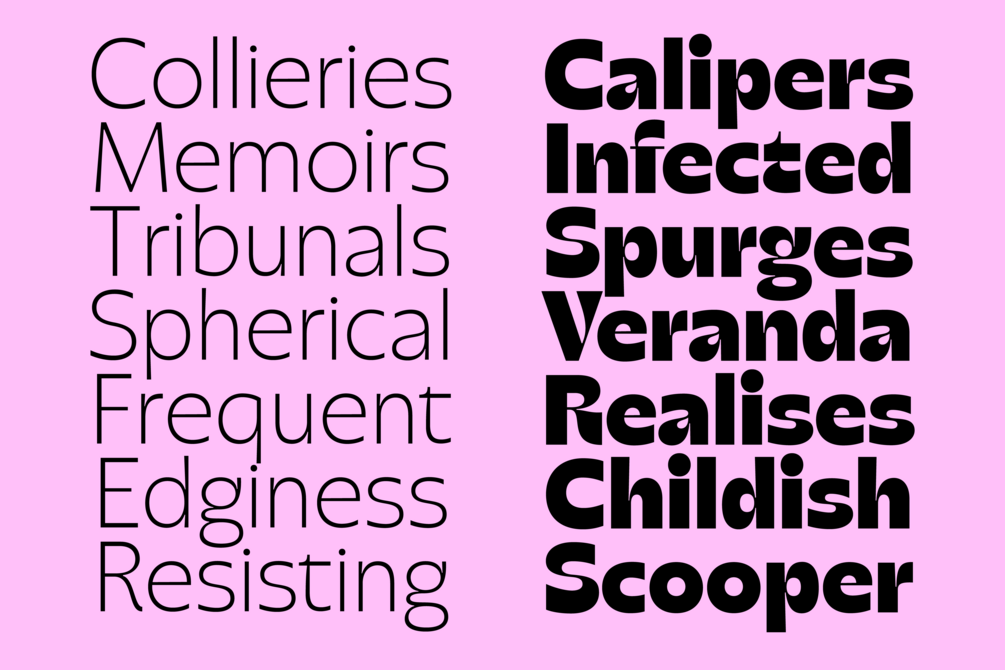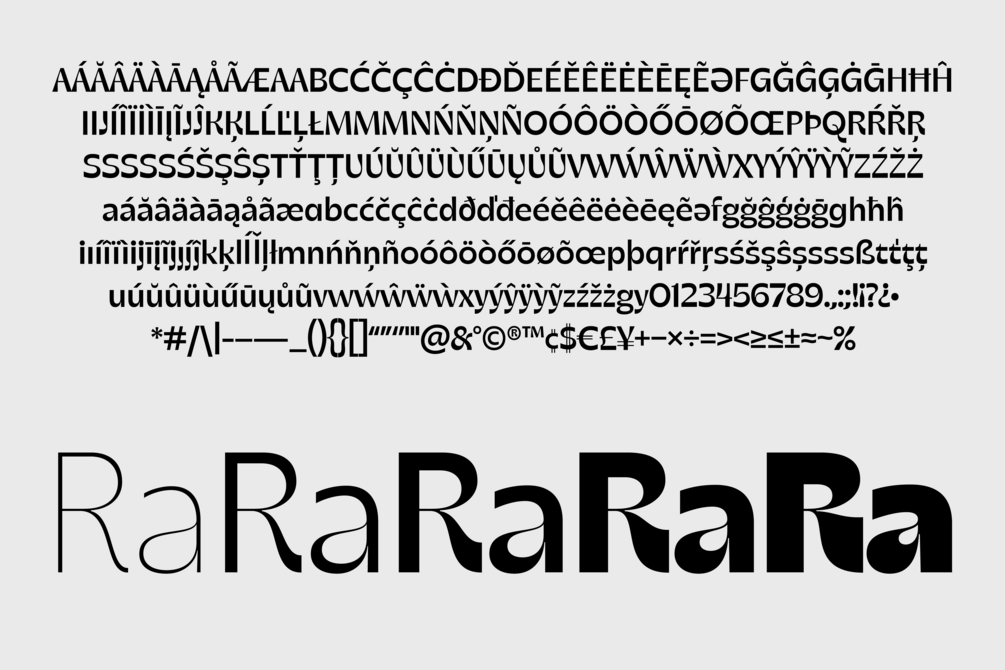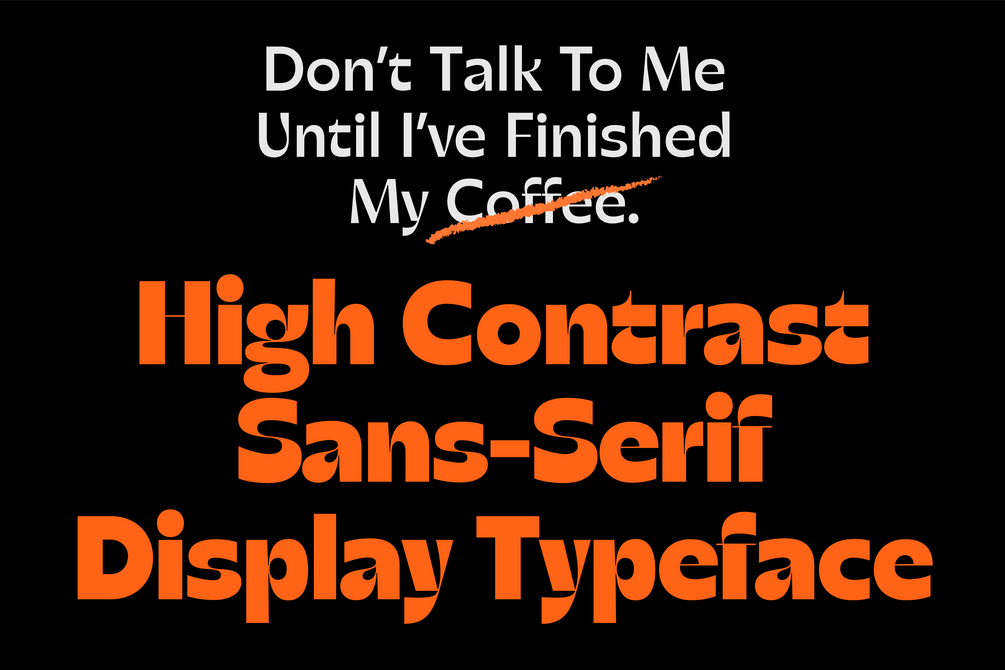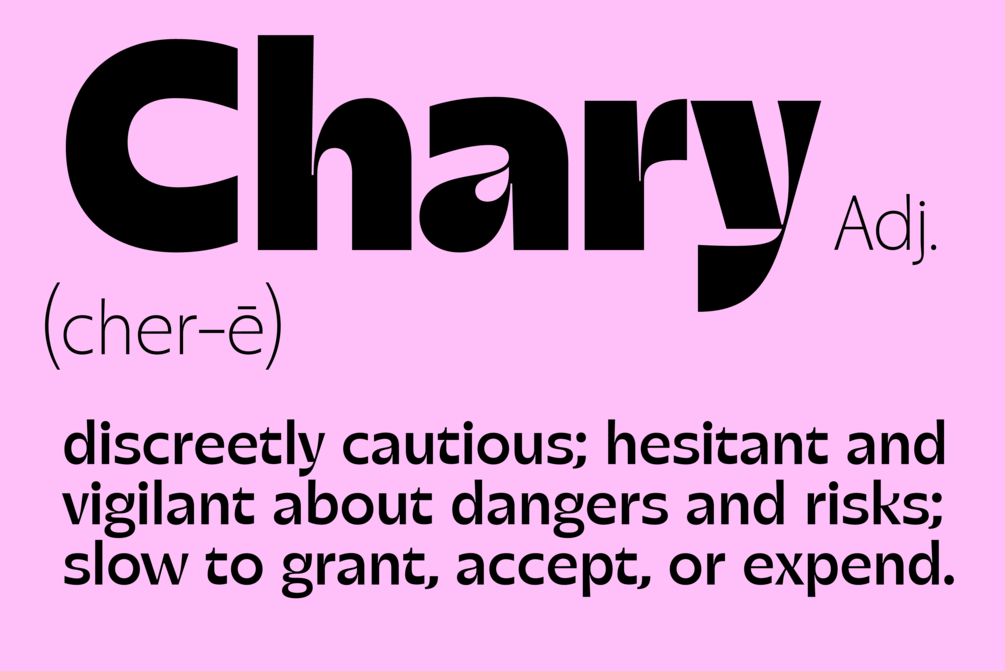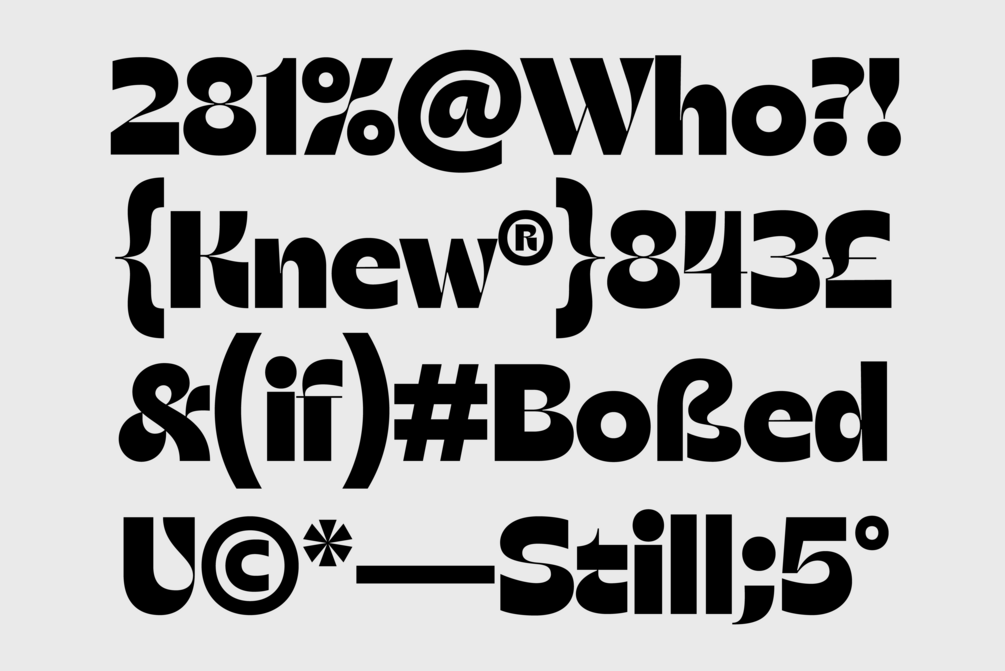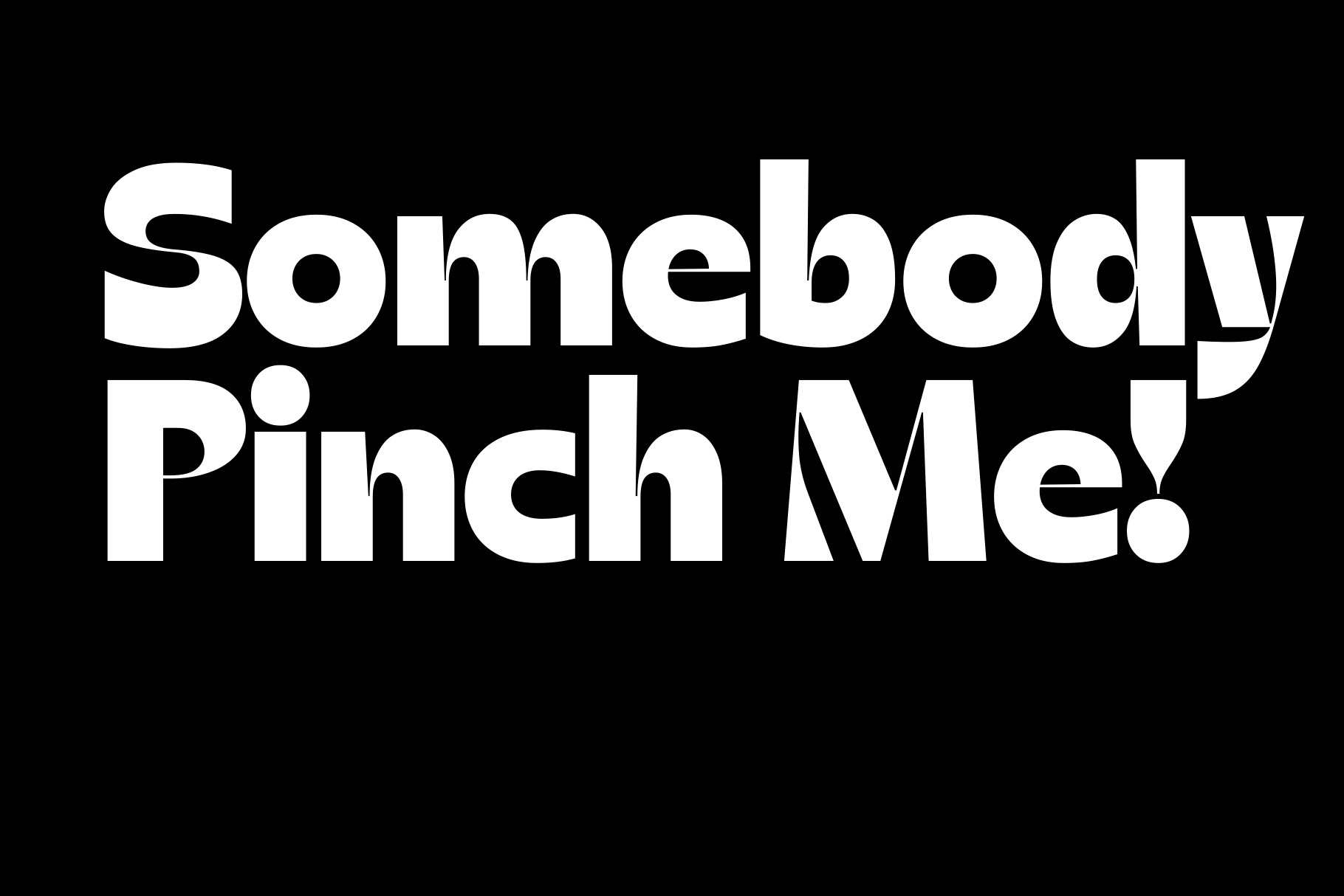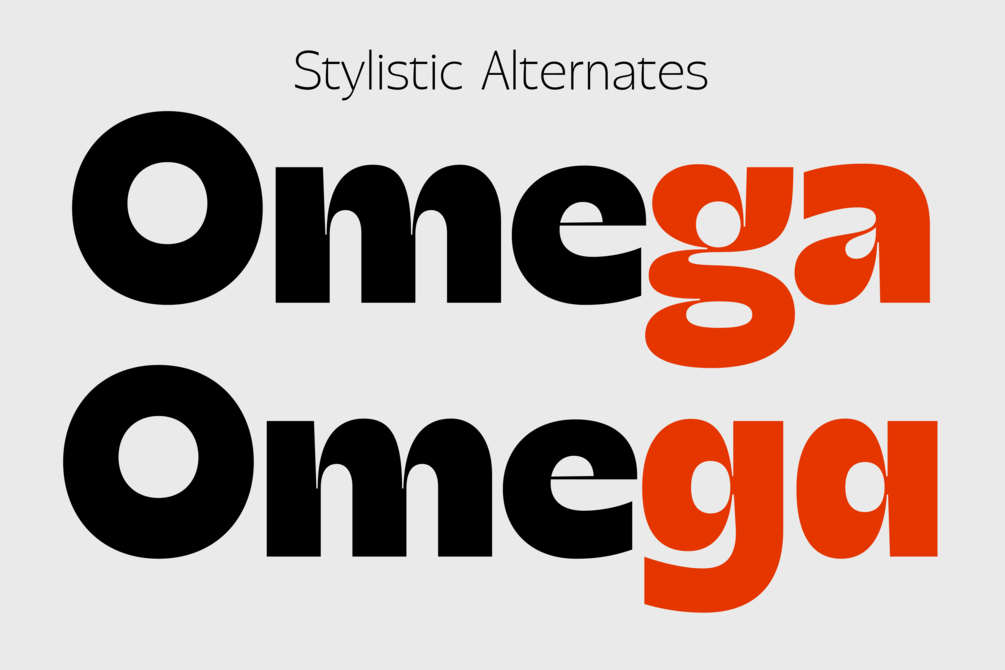
Chary
A high-contrast sans-serif variable display typeface, Chary is an introvert with a lot to say. A tough and composed exterior protects the delicate, expressive curves that make up Chary’s intrinsic character. A fine balance of geometric intensity and smooth, undulating curves, Chary is riding pretty high for a sans. This balance of order and organic personality give Chary a voice that is utterly zany but still somehow composed.
Available in 15 styles with a weight and optical size axis, Chary maintains legibility at title (72pt), headline (24–48pt) and subhead (14–18pt) sizes.
Chary includes a full upper and lowercase character set, lining figures, math characters, punctuation, 5 distinct weights and support for Western European, Central European, South Eastern European and South American scripts.